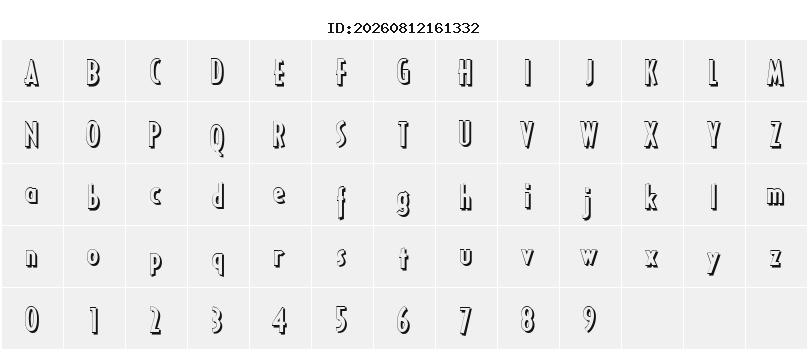
Ricks American NF Preview
• Font Name: Ricks American NF
• Full Font Name: Ricks American NF
• Designer: Nick Curtis
• Manufacturer: Nick's Fonts
About Ricks American NF.ttf
Ricks American NF.ttf is a modern, elegant sans-serif font designed for ultimate readability and visual harmony. Perfect for branding, headlines, web design, and print materials.